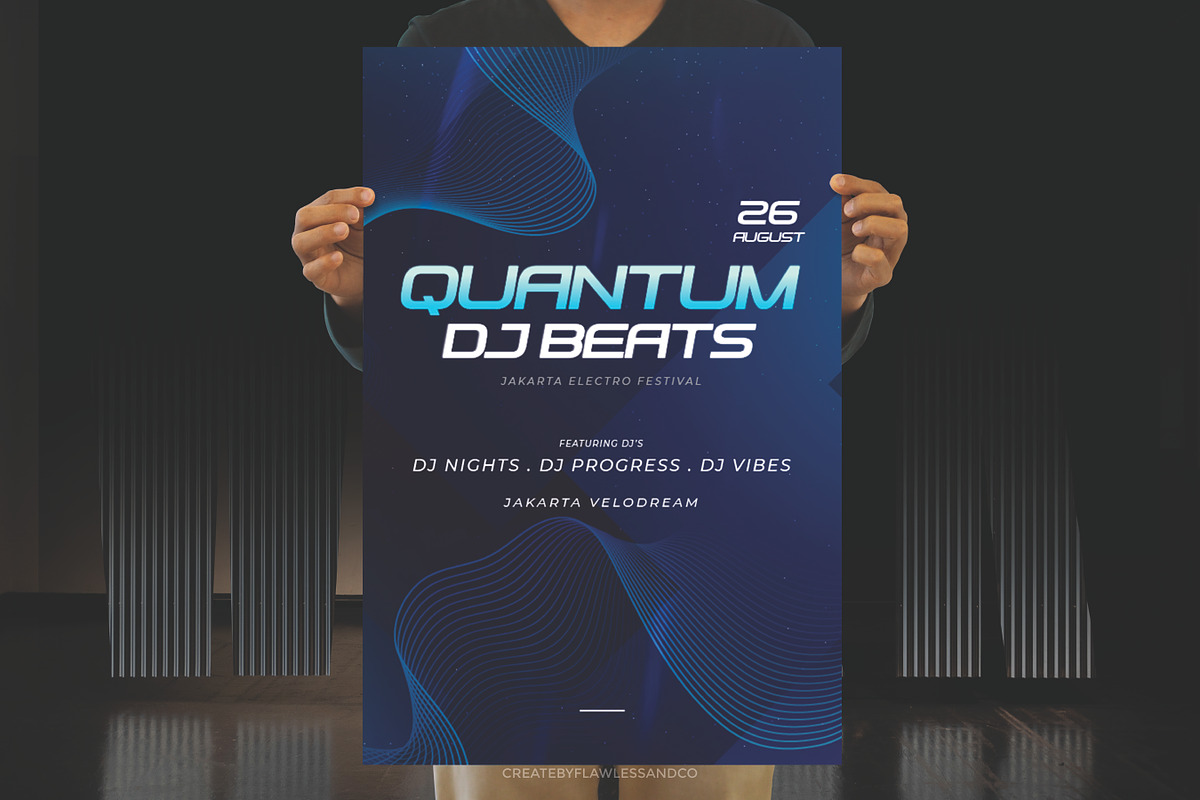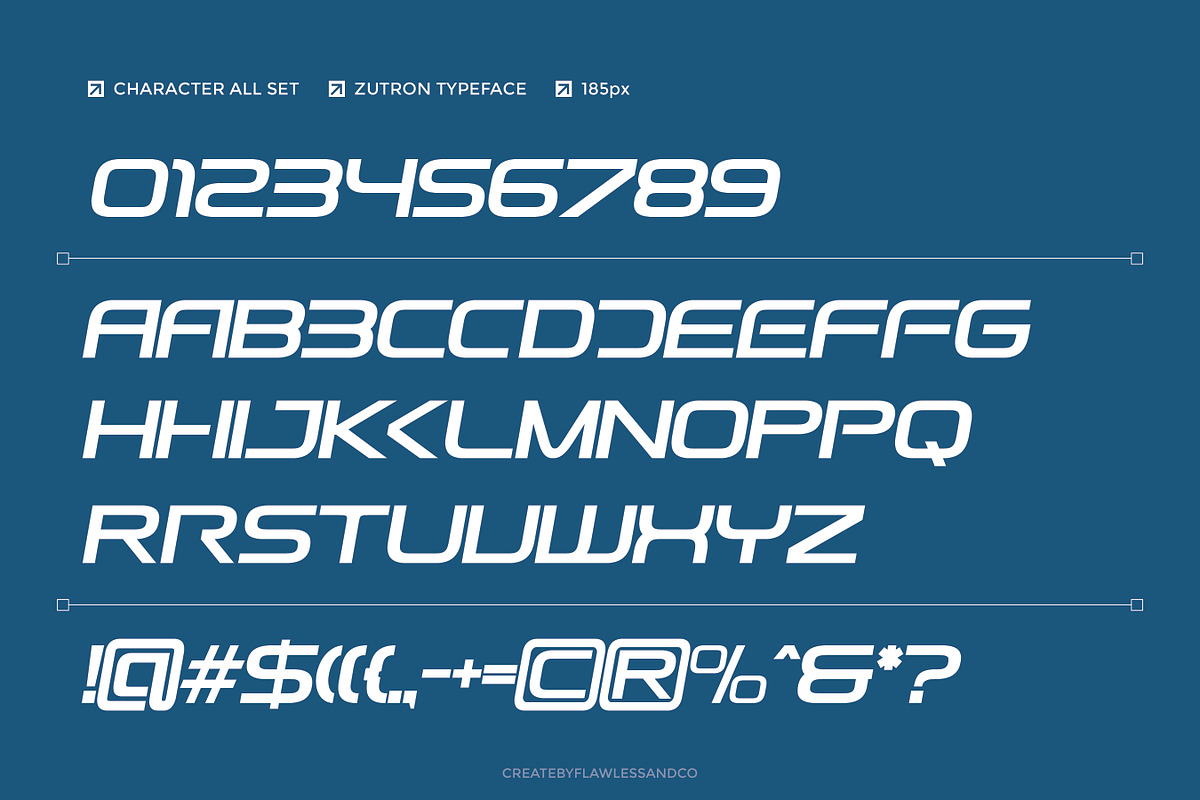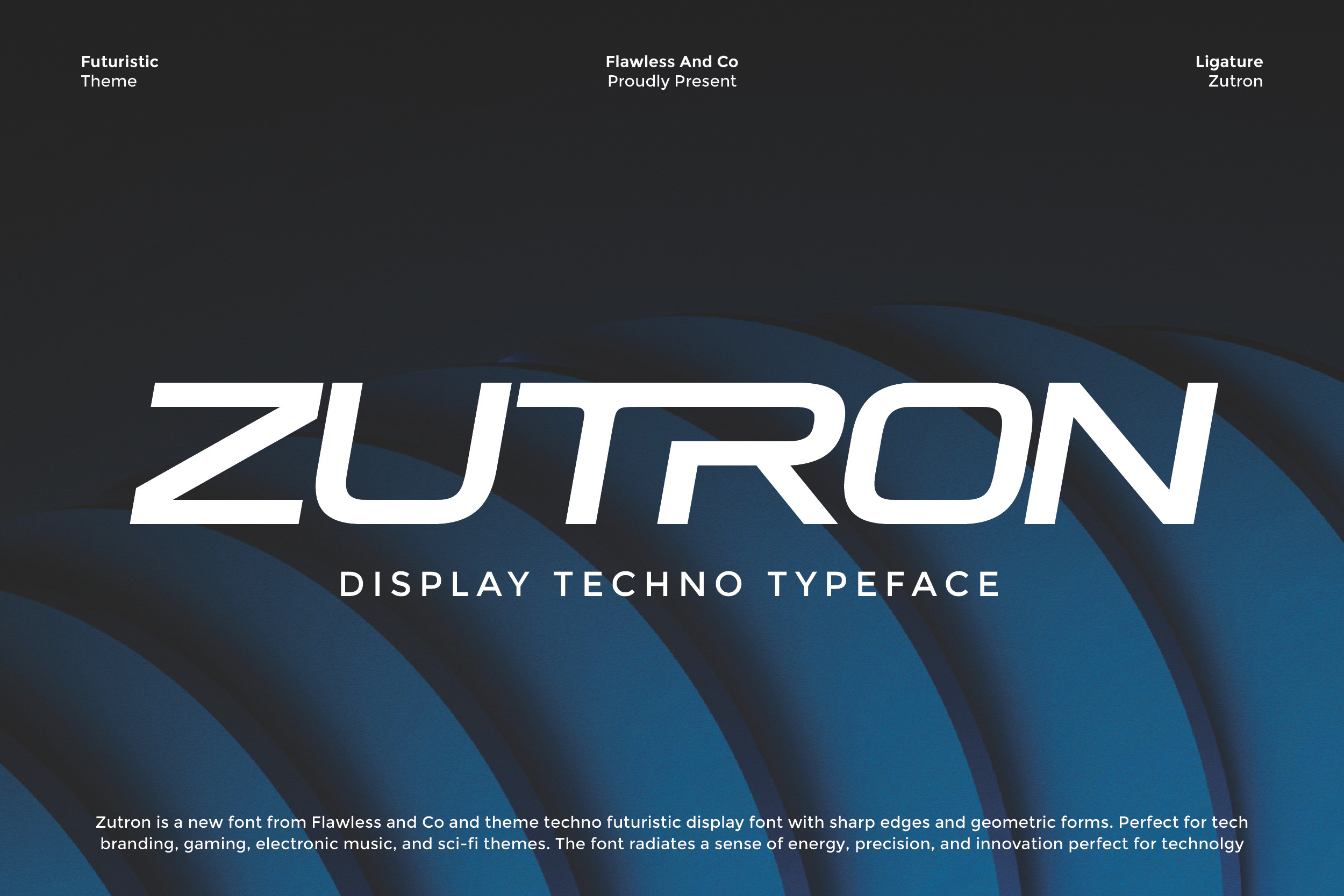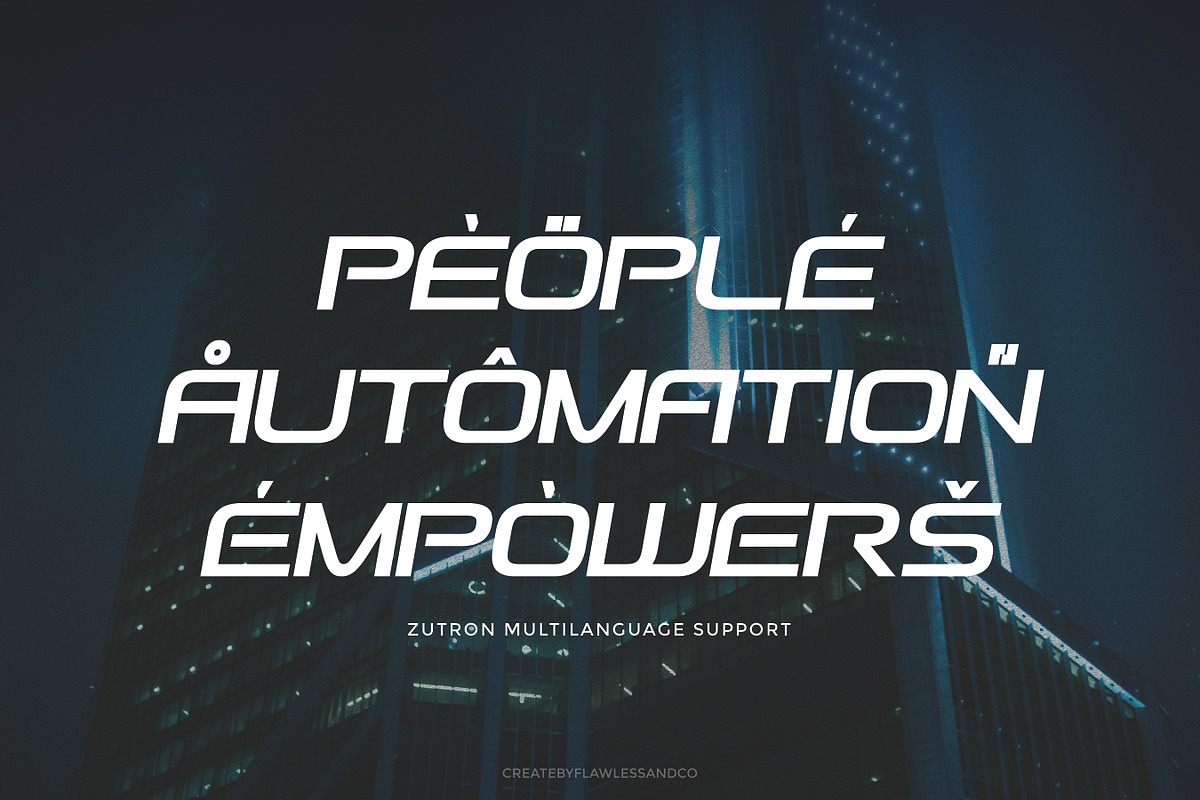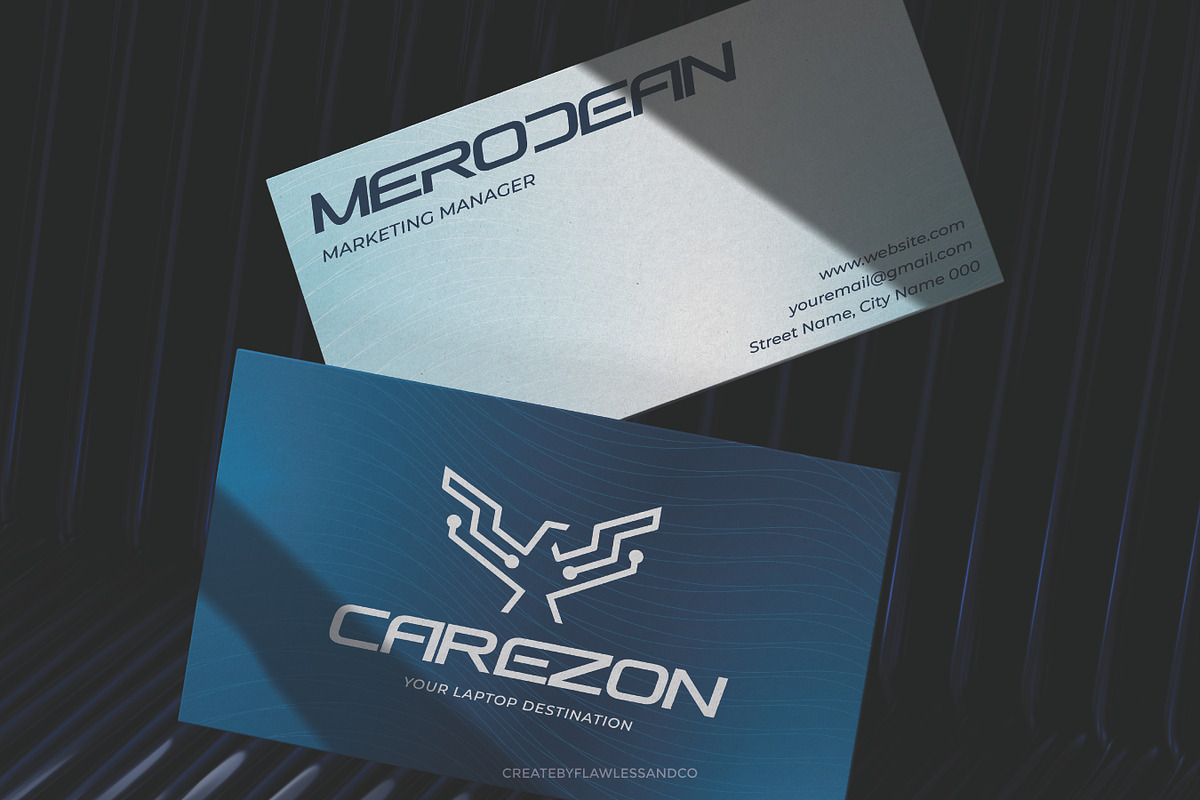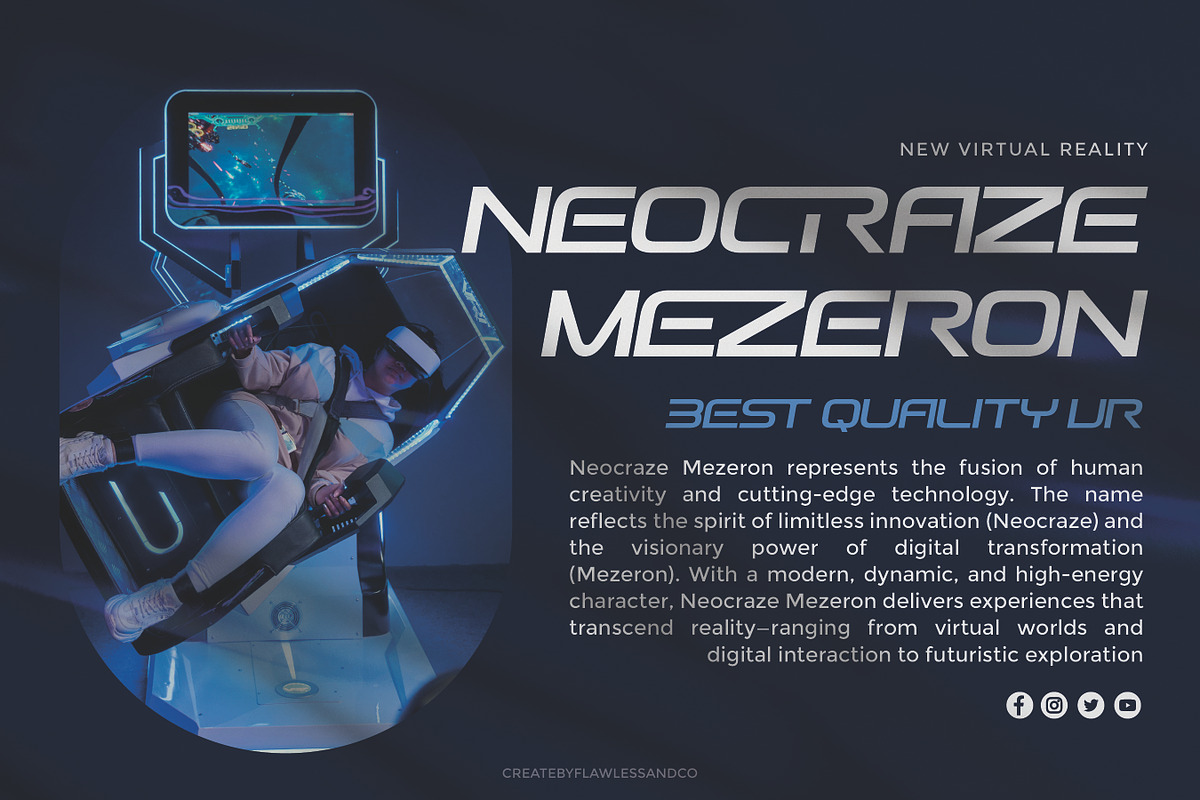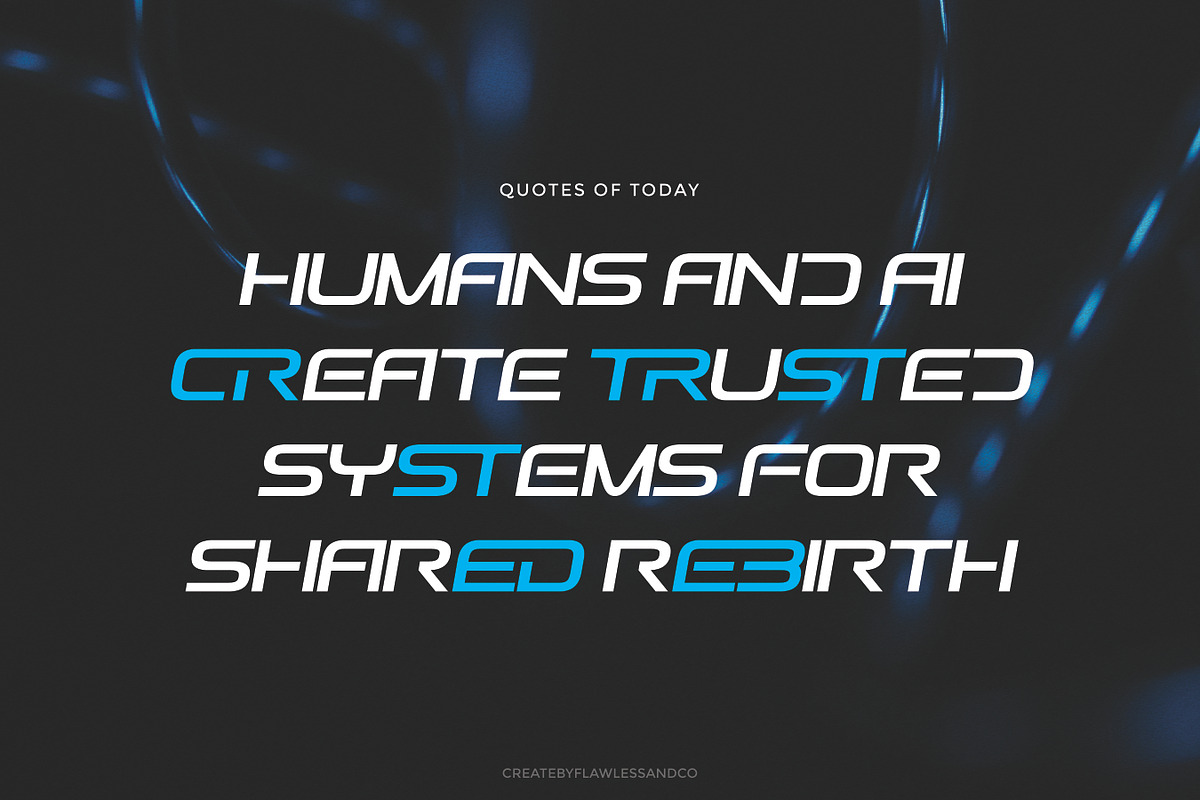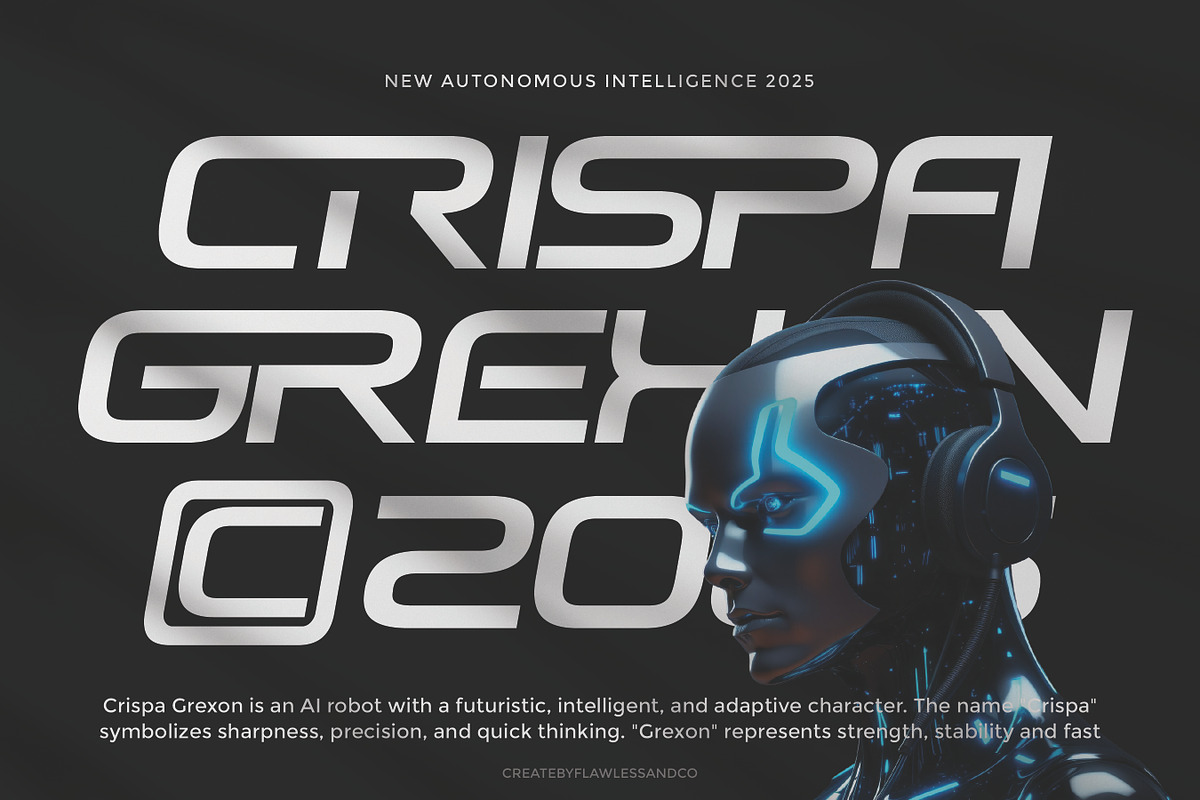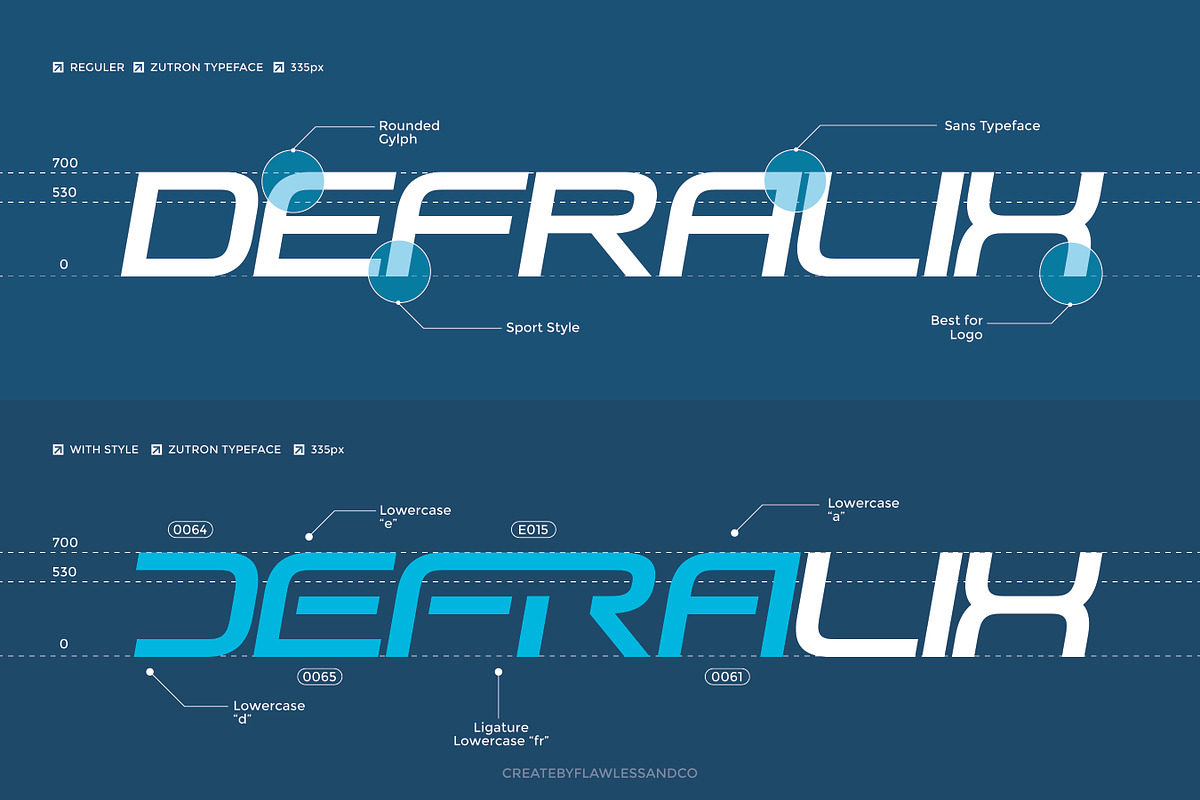
Zutron - Futuristic Display Font
Zutron - Display Techno Font
Zutron is a cutting-edge futuristic display font designed with sharp edges and geometric precision. Inspired by technology, sci-fi, and modern digital aesthetics, this typeface brings a bold and innovative look to your designs. Perfect for tech branding, gaming titles, electronic music covers, and futuristic themes, Zutron radiates energy, clarity, and forward-thinking design. With its sleek structure and techno-inspired style, Zutron gives your projects a modern identity that feels powerful, dynamic, and ahead of its time. Whether used for logos, posters, UI design, or promotional materials, this font delivers a striking futuristic impression that demands attention.
Who Should Use Zutron?
Zutron is designed for creatives, innovators, and brands who want to showcase a bold futuristic edge in their projects.
This font is perfect for:
- Tech companies and startups aiming for a modern, cutting-edge identity
- Game developers and esports teams looking for a powerful, high-tech style
- Electronic music producers and event organizers who need futuristic visuals
- Sci-fi movie posters, book covers, and immersive storytelling designs
- Designers working on UI/UX, apps, and digital platforms that demand a sleek, forward-looking font
A Must-Have Font for "Brand and Logo" Creators and Designers
Zutron is more than just a typeface—it’s a design weapon for those who want to craft bold, futuristic, and memorable identities. With its sharp edges and modern tech-inspired style, this font empowers creators and designers to build standout brand logos that radiate innovation, strength, and a forward-thinking spirit.
Why Choose Zutron for "Brand and Logo" Projects?
Zutron is designed to elevate branding with a futuristic edge and professional versatility. Its bold structure and innovative details make it perfect for logos that demand attention and authority. Whether you’re shaping a modern tech identity, an esports emblem, or a stylish business logo, Zutron delivers the impact, clarity, and originality your brand deserves.
Suitable For
- Brand identities & modern logo design
- Esports teams & gaming projects
- Tech startups & digital platforms
- Posters, banners & promotional materials
- Social media graphics & streaming visuals
- Merchandise, apparel & product packaging